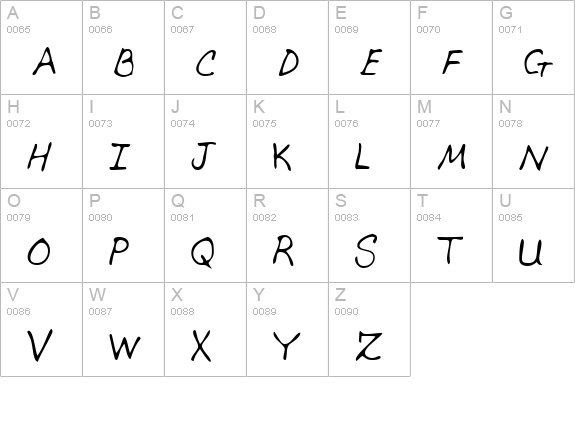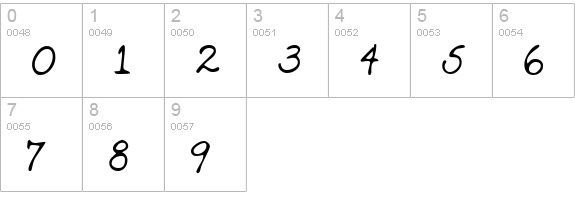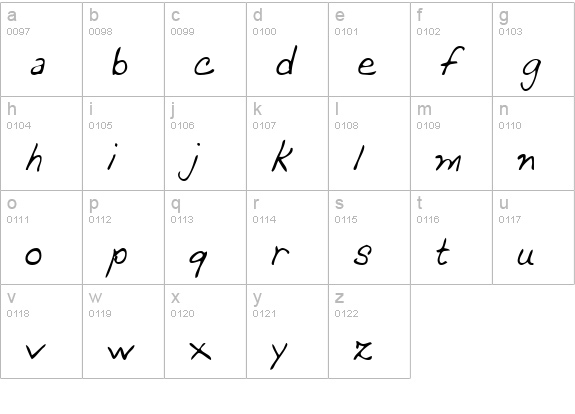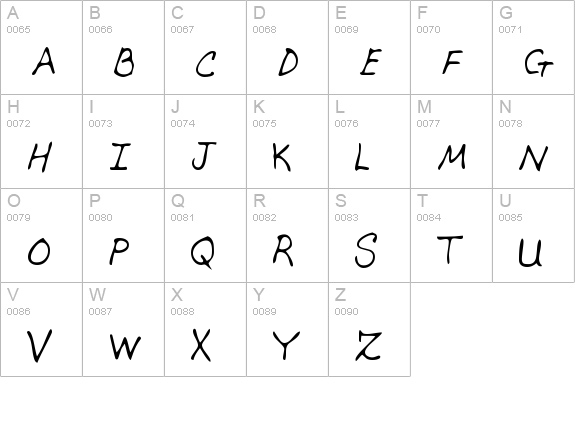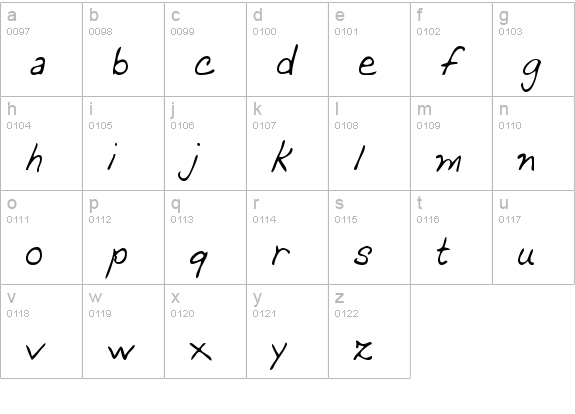
DeannasHand Regular Font Details
DeannasHand Regular is the standard, neutral variant in the DeannasHand typeface family \xE2\x80\x94 well suited to general body text, paragraphs, and standard typographic work.
DeannasHand Regular is a charming and elegant font that exudes a sense of warmth and friendliness. Its flowing and smooth handwritten style gives a personal touch to any project, making it perfect for invitations, greeting cards, and more. Whether you're looking to add a touch of whimsy or sophistication, DeannasHand Regular has you covered. This versatile font is not only visually appealing but also incredibly easy to read, making it suitable for a wide range of design projects. Its classic yet modern look ensures that it stands out without overpowering the overall design. And the best part? DeannasHand Regular is completely free for personal and commercial use! You can download this beautiful font at FontsMarket.com and start incorporating its elegant charm into your projects today. Don't miss out on this fantastic opportunity to enhance your designs with DeannasHand Regular.